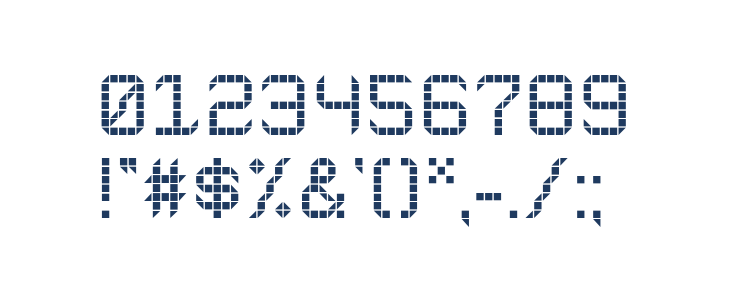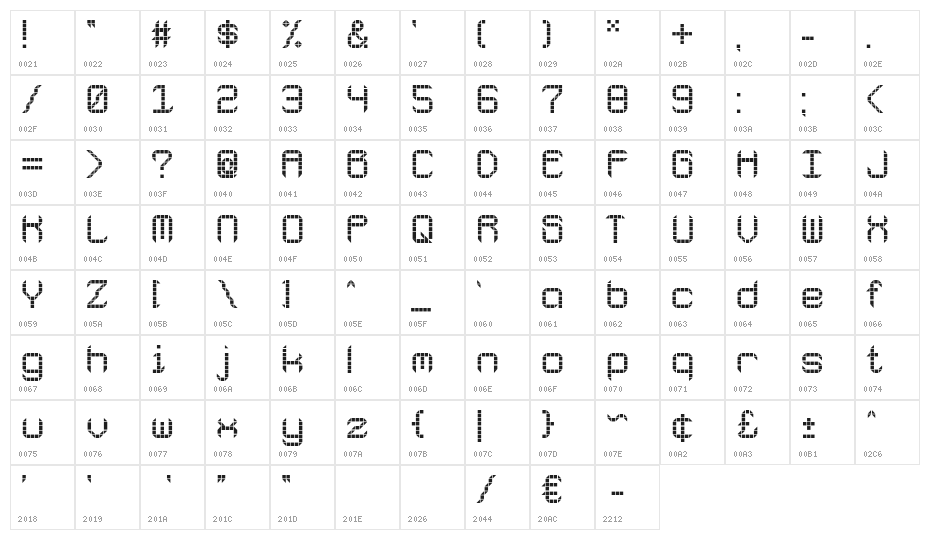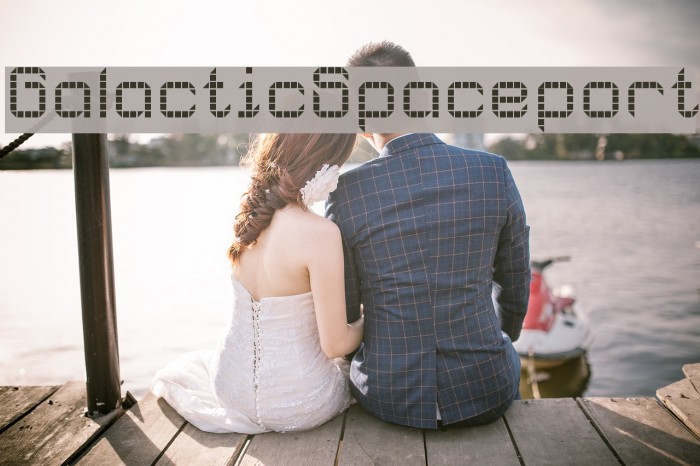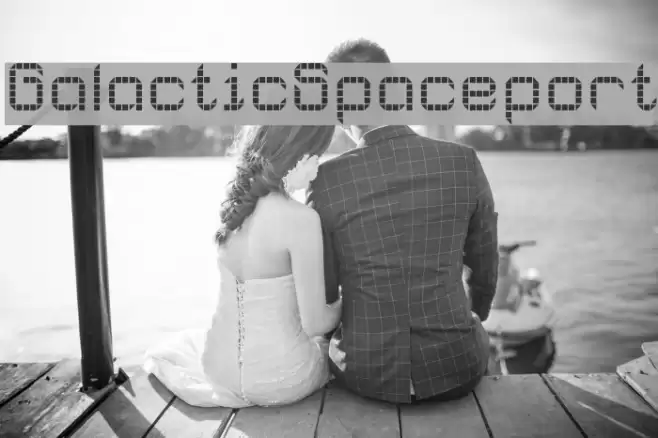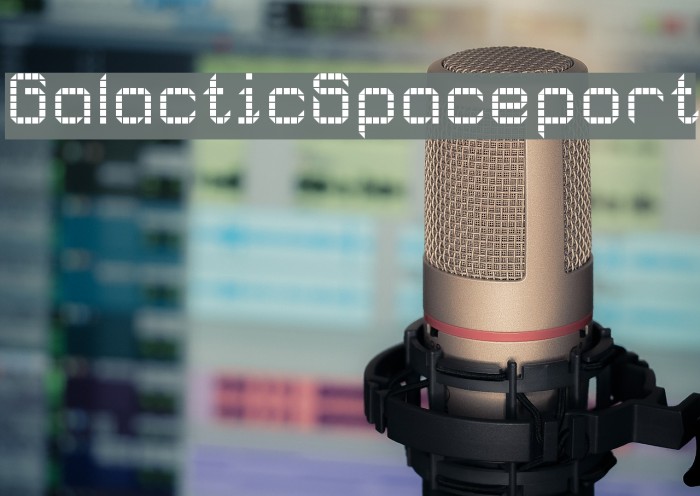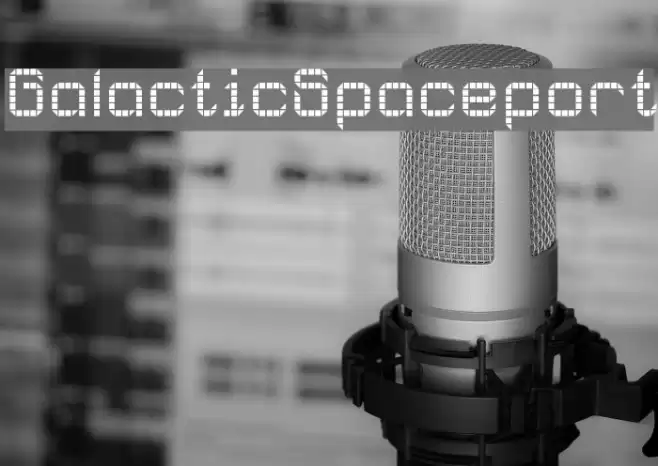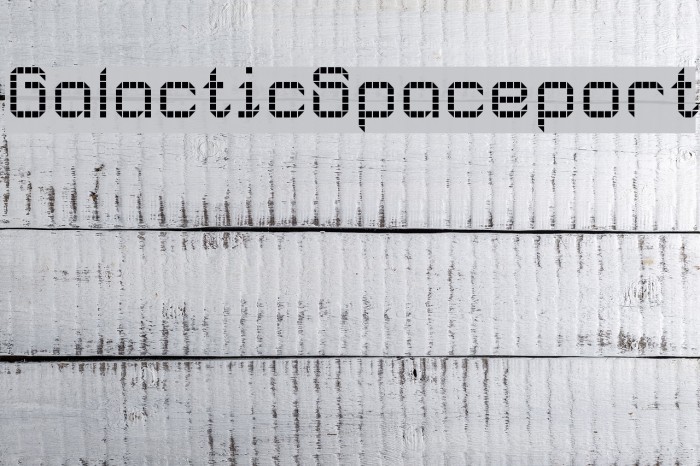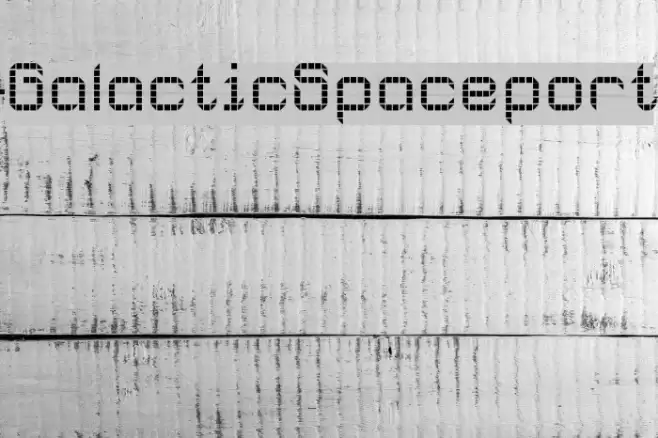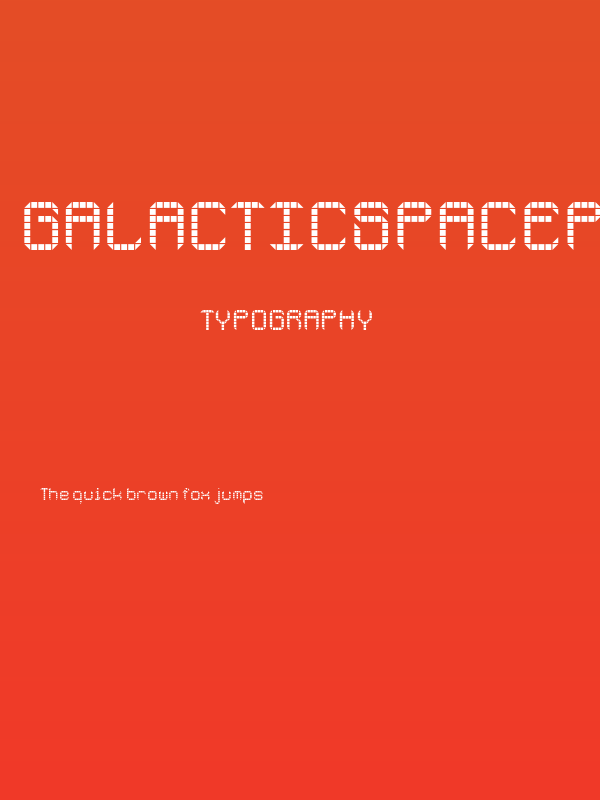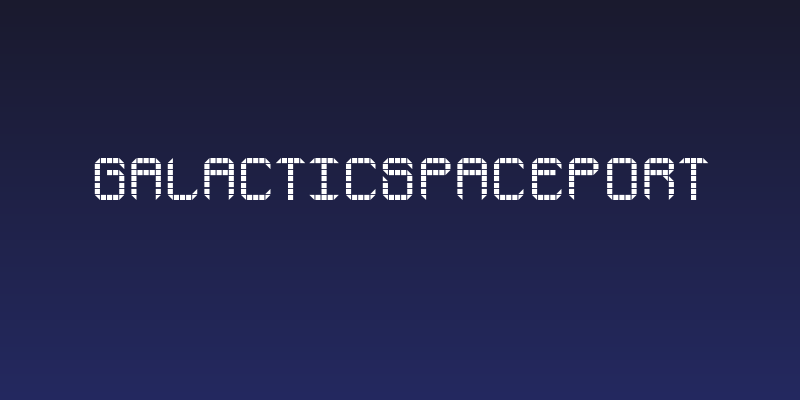
This font features a futuristic and geometric design, characterized by its use of small square blocks to form each letter and symbol. The style is reminiscent of digital displays or pixel art, giving it a distinctly modern and technological feel. The uppercase and lowercase letters maintain a consistent blocky appearance, while numbers and special characters are crafted with the same attention to detail. This font is ideal for projects that aim to convey a sense of innovation, technology, or a digital aesthetic. Its unique structure makes it stand out, ensuring that any text using this font will capture attention.
| Proposed Projects | Ideal for tech-related branding, video game interfaces, sci-fi posters, and digital art projects. |